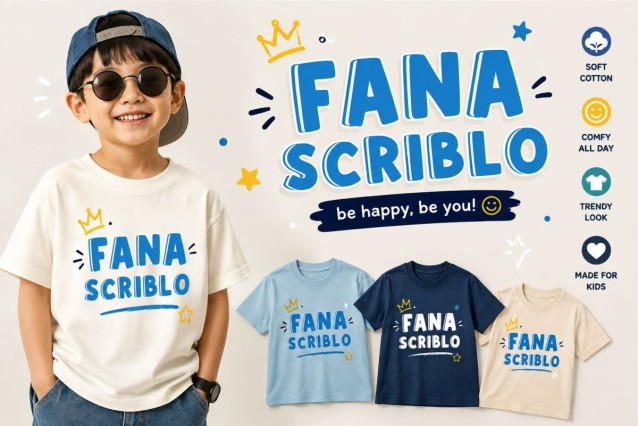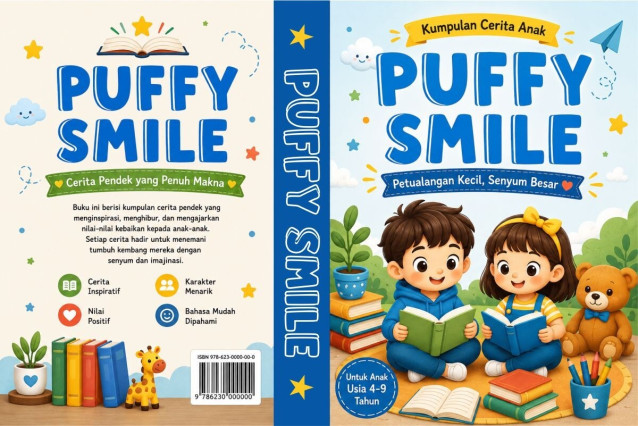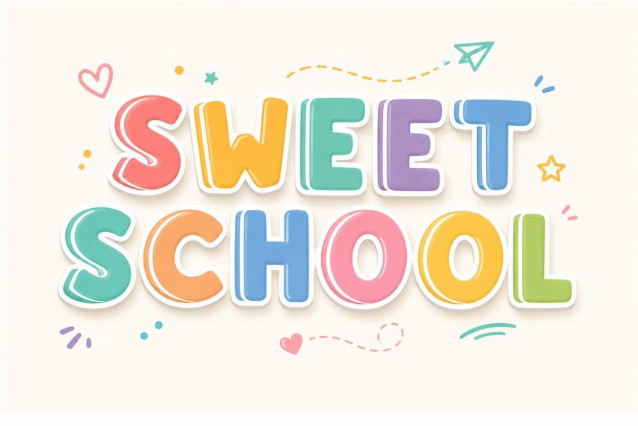
Sweet School Font
Add a touch of creativity to your projects with Sweet School, an engaging display font designed to bring maximum cheer! It features bold, rounded letterforms with charming dashed-line details inside, mimicking the look of handmade stickers and crafts.
Whether you are designing for the classroom, creating custom birthday party favors, or making adorable stickers, this font is sure to grab attention. It is bold, highly legible, and fully compatible with various cutting machines and design software.